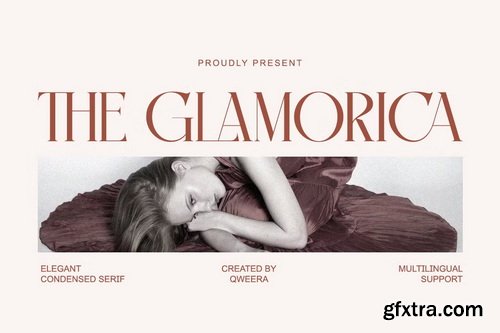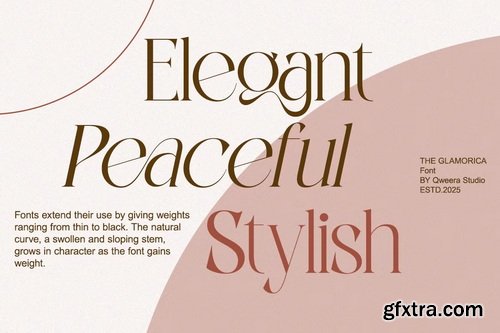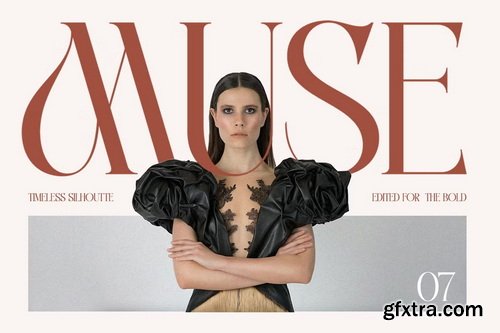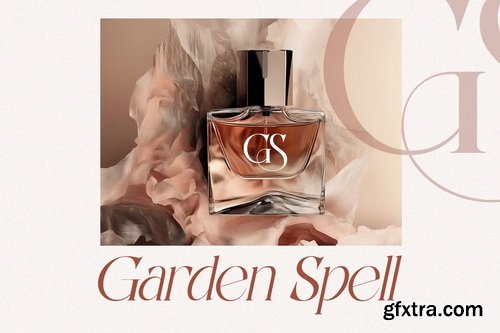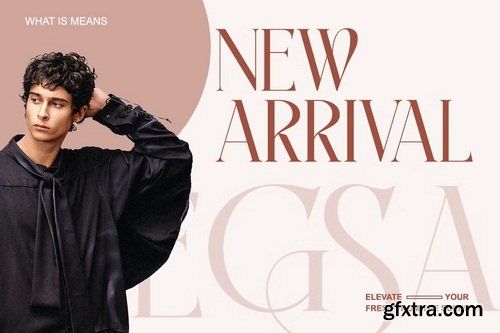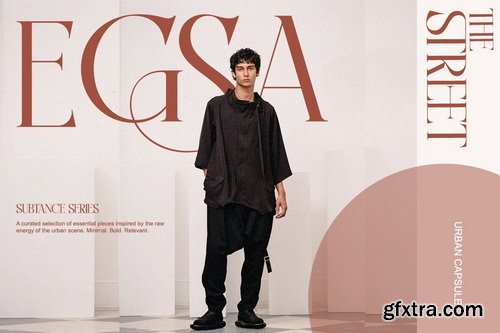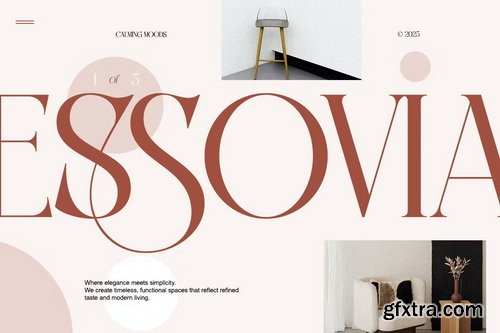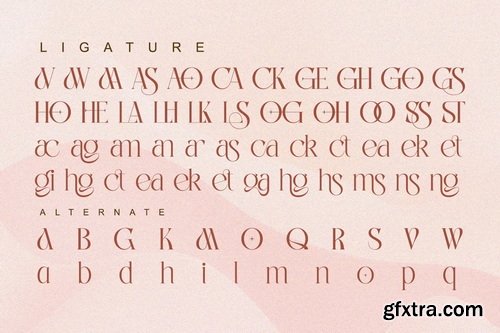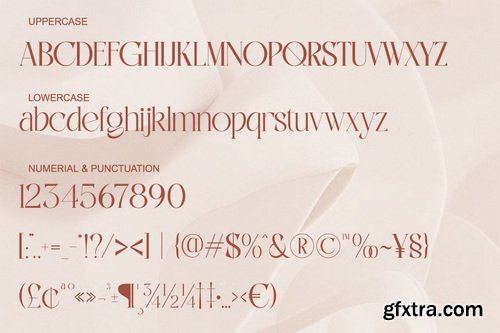
CreativeMarket - The Glamorica Modern Elegant
- The Glamorica is a sophisticated modern serif font crafted for elegance, luxury, and high-fashion design. With its refined curves, sleek condensed form, and graceful letter shapes, this typeface elevates every project into a statement of timeless style. Perfect for brands seeking a polished and exclusive visual identity, The Glamorica brings a luxurious presence to your typography. From high-end packaging to premium editorial layouts, this font delivers unmatched elegance.